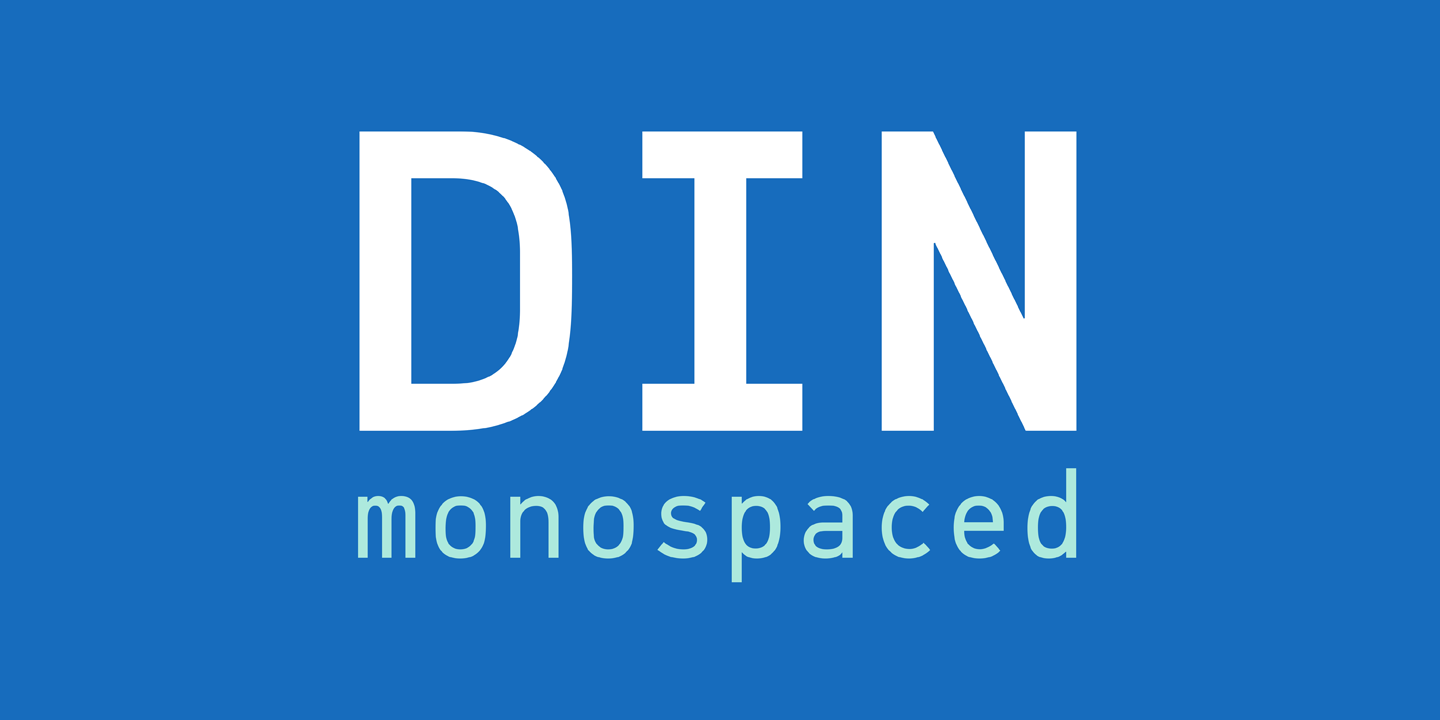
PF DIN Mono Font is a highly precise and exceptionally clear typeface, perfect for designs that demand a technical, structured, or digital aesthetic. As a monospaced font, where every character occupies the same horizontal space, it's an excellent choice for coding environments, data visualization, console displays, and technical documentation. Imagine it rendering clean and readable code in a developer's IDE, providing crisp output for scientific charts and graphs, or adding an authentic feel to retro-futuristic UI designs. This font is also superb for terminal emulators, log files, and any project where uniform character spacing, clarity, and a no-nonsense, functional visual identity are key. It doesn't just display text; it presents information with absolute accuracy and an undeniable sense of order.
What makes PF DIN Mono Font so exciting is its remarkable blend of the classic DIN industrial aesthetic with the functional clarity of a monospaced design. It maintains the legibility and robustness of the original DIN typefaces while offering the fixed-width characteristic crucial for certain applications. This unique combination allows designers to create visually compelling content that is both highly readable and inherently structured, ideal for displaying data or code. It’s a font that speaks with a precise and dependable voice, making it ideal for brands and content creators who want to convey reliability, technical expertise, and a clean, efficient aesthetic. Its consistent spacing makes it a go-to for situations where column alignment and predictability are paramount.
The PF DIN Mono Font family typically offers a comprehensive range of weights to provide extensive design flexibility within its monospaced format. While the focus is on uniform spacing, variations in stroke thickness enhance its utility across different contexts. You can generally expect to find key members that support diverse layout needs, such as:
PF DIN Mono Thin
PF DIN Mono Light
PF DIN Mono Regular
PF DIN Mono Medium
PF DIN Mono Bold
PF DIN Mono Italic (for various weights, offering a slanted version)
These various weights empower designers to create effective visual hierarchies, emphasize important information, and maintain a consistent, polished, and highly functional look throughout all design assets. The opportunity to utilize PF DIN Mono Font Free Download is an excellent way to experience its unique precision and robust clarity for your personal projects.